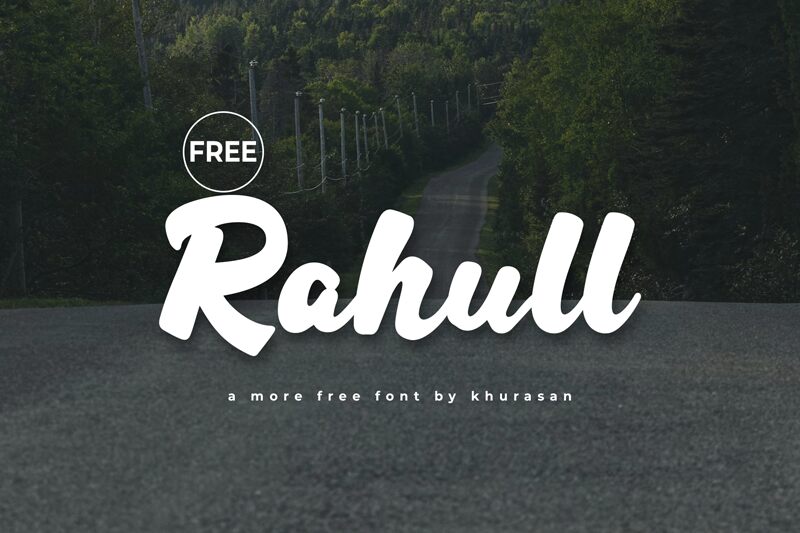
Rahull font family is a script typeface designed by Khurasan, presenting an approachable and casual character with an energetic style stemming from its fluid lines. It is the perfect attention-grabber for a headline or large title. It contains basic alphabets and uses minimal lines in its construction. The font family includes a total of 2 styles that are best paired together in use. It is a free font which means it can be downloaded and put to use at no cost.
Samples of effective usage of this font family include a clothing brand logo or packaging. Your skincare brand might also be missing this authenticity in its online communications whether it be the web or social media. If by any chance you own a coffee shop, Rahull could be your ideal marked font across your shop signs, menus, cups, and everything in between.